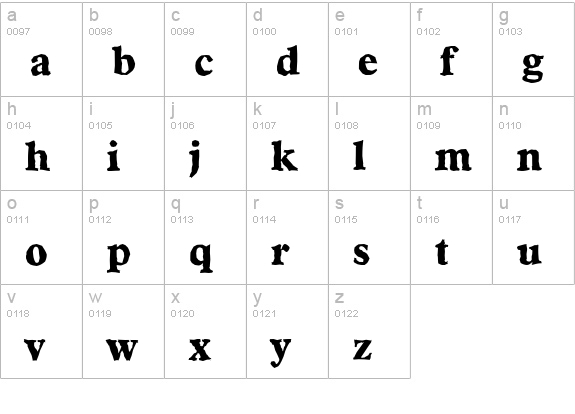
FranciscoAntique-Xbold-Regular Font Details
FranciscoAntique-Xbold-Regular is the standard, neutral variant in the FranciscoAntique typeface family \xE2\x80\x94 well suited to general body text, paragraphs, and standard typographic work.
FranciscoAntique-Xbold-Regular is a timeless and elegant font that exudes sophistication and charm. Its bold and striking appearance makes it perfect for headlines, titles, and other prominent text in various design projects. The classic serifs and intricate details give this font a touch of vintage flair, adding a sense of nostalgia to any design. The FranciscoAntique-Xbold-Regular font is not only visually appealing but also highly versatile, making it suitable for a wide range of applications including branding, packaging, invitations, and more. Its bold weight commands attention and ensures that your message is conveyed with authority and impact. Best of all, FranciscoAntique-Xbold-Regular is available for free download at FontsMarket.com. This means that you can easily access and use this stunning font in your projects without any cost, making it a valuable addition to your font collection. Don't miss out on the opportunity to enhance your designs with the timeless beauty of FranciscoAntique-Xbold-Regular. Download it now and elevate your creative projects to new heights.